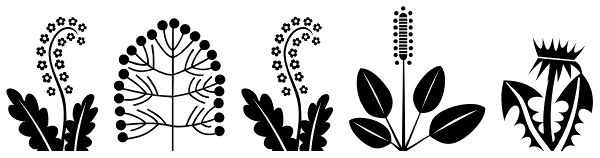
Makalu
Makalu is a funny flower font inspired by the lovely drawings of the famous illustrator Zdeněk Miler (best known for his small mole). His flowers are at the same time cartoony and realistic. Enjoy this choice of 27 original and distinctive...